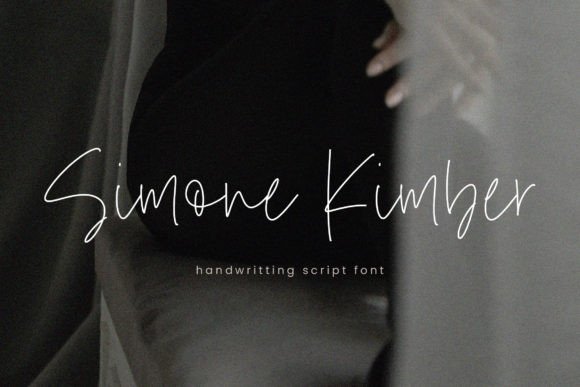
Unleash the charm of handwritten elegance with Simone Kimber Font, the enchanting script font meticulously crafted by Timur Type. Immerse yourself in the world of cursive artistry, where each stroke dances gracefully, captivating the eyes with its fluid lines and delicate curves.
As you embark on your creative journey with Simone Kimber, discover a font that seamlessly blends beauty and functionality. Its well-balanced characters ensure effortless readability, while its charm adds a touch of sophistication to any design. Whether you're crafting heartfelt invitations, elegant branding designs, or captivating social media posts, Simone Kimber gracefully elevates your words, making them resonate with timeless allure.
Picture the allure of a handwritten love letter, the warmth of a heartfelt greeting card, or the timeless beauty of a vintage wedding invitation. With Simone Kimber, your creations transcend the mundane, becoming tangible expressions of art. Its elegant flow complements wedding stationery, personal branding, and social media graphics, adding a touch of sophistication that speaks volumes.
Experience the versatility of Simone Kimber, a font that effortlessly adapts to a myriad of design styles. From vintage-inspired designs to modern minimalist aesthetics, it seamlessly blends with your creative vision, adding a touch of timeless elegance. Its delicate strokes bring warmth and charm to logos, branding materials, packaging designs, and more.
Indulge in the beauty of Simone Kimber, a font that awakens the senses and captivates the imagination. Its graceful curves and enchanting flow create a visual symphony that breathes life into your designs. With Simone Kimber, your creations transcend the ordinary, becoming expressions of artistry and elegance that leave a lasting impression.
Take the plunge into the world of cursive artistry, where Simone Kimber Font reigns supreme. Let its delicate strokes dance across your designs, enchanting your audience with its timeless elegance. Discover the transformative power of this captivating font and elevate your creativity to new heights.